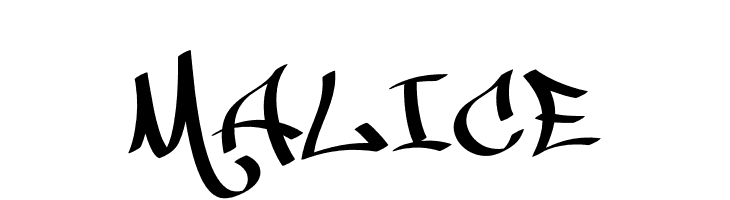
A playful, bubbly font with rounded, hand-drawn characters.
A bold, angular font with a modern, edgy style.
A pixelated, retro-style font with a blocky, geometric design.
A playful, bold font with rounded edges and a whimsical style.
A playful, cartoon-like font with bold, expressive characters.
A playful, bold, and hand-drawn font with a whimsical touch.
A bold, playful font with a hand-drawn, whimsical style and uneven strokes.
A playful, bold font with rounded, chunky letters.
A bold, angular font with a geometric and modern style.
A bold, geometric typeface with sharp angles and clean lines.
A pixelated, grid-like font with a retro digital aesthetic.
A cursive, handwritten-style font with elegant loops and swashes.
A bold, decorative font with directional arrows in geometric shapes.
A modern, geometric set of directional arrow symbols in circles and squares.
A decorative font featuring bold arrow symbols in circular and square borders.
Ornamental dingbat font with mandala and floral motifs.
A bold, playful font with circular cutouts and a modern, quirky style.
A bold, circular-enclosed font with a modern and striking appearance.
A bold, geometric sans-serif font with characters enclosed in circles for a unique, decorative look.
A modern, decorative font with characters enclosed in circles, offering a playful yet structured look.
A bold, playful font with a melting outline style, perfect for decorative use.
A bold, geometric font with intricate patterns and sharp edges.
A geometric, mosaic-inspired font with rounded edges and intricate patterns.
A geometric, tile-inspired font with a modern and decorative style.
A bold, geometric tile font with a mosaic-like design, perfect for striking displays.
A geometric, tile-patterned font with a modern and artistic flair.
A bold, playful handwritten font with thick, rounded strokes.
A bold, geometric font with a modern and versatile style.
A bold, playful font with rounded, whimsical letterforms.
A playful, rounded font with smooth lines and a friendly vibe.
A playful, bold font with rounded, thick strokes and a whimsical touch.
A playful, hand-drawn font with bold, rounded outlines.
A playful, bold font with rounded edges and a whimsical touch.